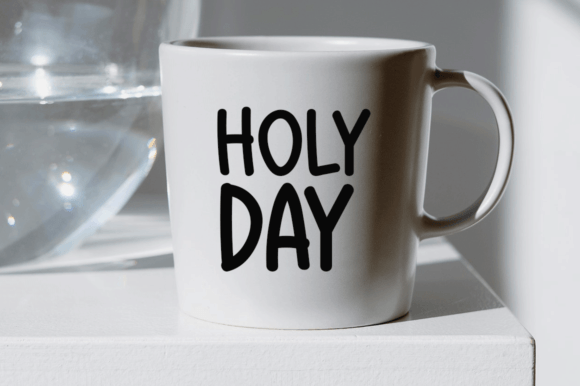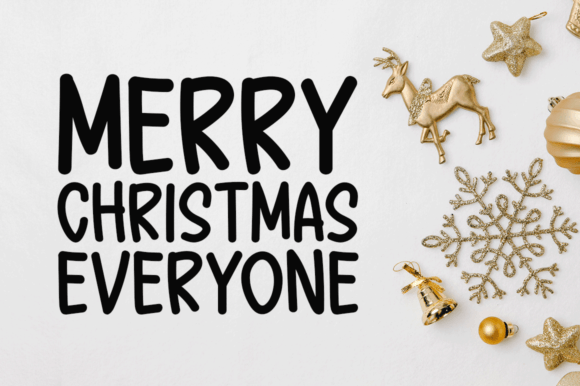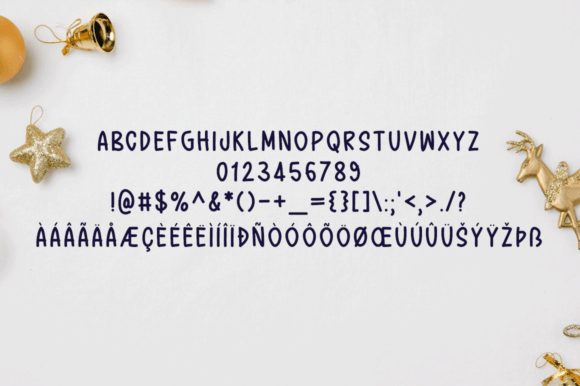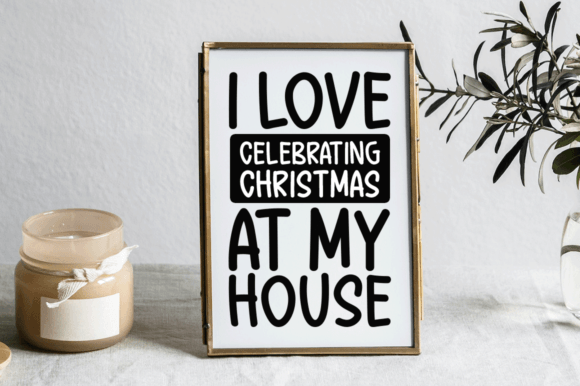
Dreaming Christmas Font: Elevate Your Holiday Designs with a Touch of Elegance
As the holiday season approaches, designers and crafters are on the lookout for the perfect typography to make their Christmas projects stand out. If you’re searching for a font that embodies the spirit of Christmas with a touch of simplicity and elegance, look no further than the Dreaming Christmas Font. This simple-lettered display font is designed to complement a wide range of projects, adding a festive flair that will capture the essence of the holiday season.
What is Dreaming Christmas Font?
Dreaming Christmas Font is a beautifully crafted, simple-lettered display font that is perfect for adding a personal touch to your holiday designs. Its clean and elegant lines make it versatile enough to be used in a variety of projects, from festive greeting cards and invitations to holiday-themed posters and social media graphics.
Key Features of Dreaming Christmas Font
- Simple and Elegant Design: The font’s simple-lettered design ensures that your message is conveyed clearly and stylishly.
- Versatility: Dreaming Christmas Font can be matched with an incredibly large set of projects, making it a valuable addition to your font collection.
- Easy to Read: Despite its decorative nature, the font remains easy to read, ensuring that your holiday messages are understood by all.
- Perfect for Holiday Projects: Whether you’re designing for personal use or for clients, this font adds a festive touch that’s sure to delight.